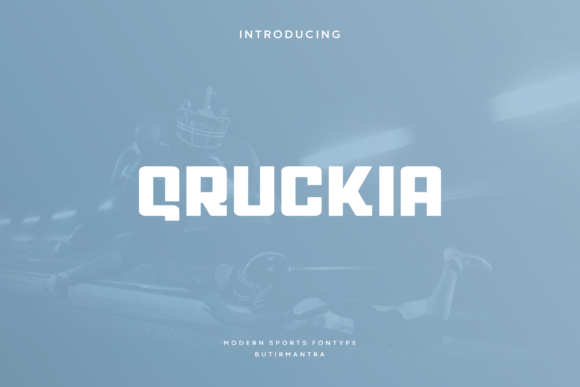
Step into the realm of typography with Qruckia Font, the epitome of sophistication and modernity. Crafted with meticulous precision, this sans-serif font family exudes elegance and versatility, making it an indispensable tool for any designer's arsenal.
Qruckia Font is not just a font; it is an artistic expression that transcends the boundaries of ordinary typefaces. Its clean lines, sharp angles, and subtle curves create a striking visual impact that commands attention. Whether you're designing a captivating logo, crafting a compelling website, or creating eye-catching marketing materials, Qruckia Font will elevate your designs to new heights.
With its extensive character set and multilingual support, Qruckia Font seamlessly adapts to a wide range of languages and scripts. Its exceptional readability and legibility ensure that your message is conveyed with clarity and impact, regardless of the medium.
Indulge in the boundless creative possibilities that Qruckia Font offers. Unleash your imagination and craft designs that resonate with your audience, leaving a lasting impression that sets you apart from the ordinary.
Qruckia Font is more than just a font; it's an investment in your creative endeavors. Its timeless appeal and versatility guarantee that it will remain a cornerstone of your font collection for years to come. Embrace the transformative power of Qruckia Font and embark on a journey of typographic excellence today!